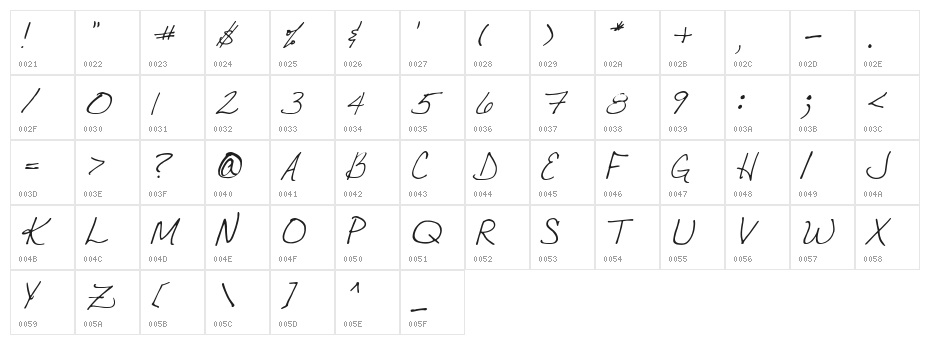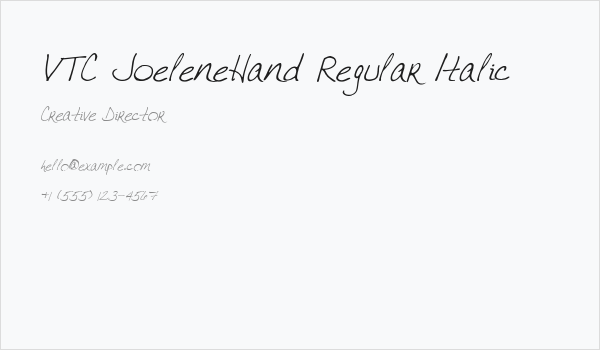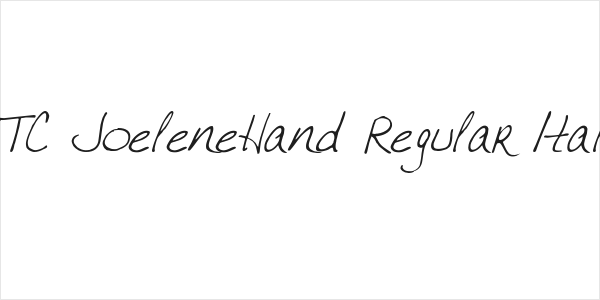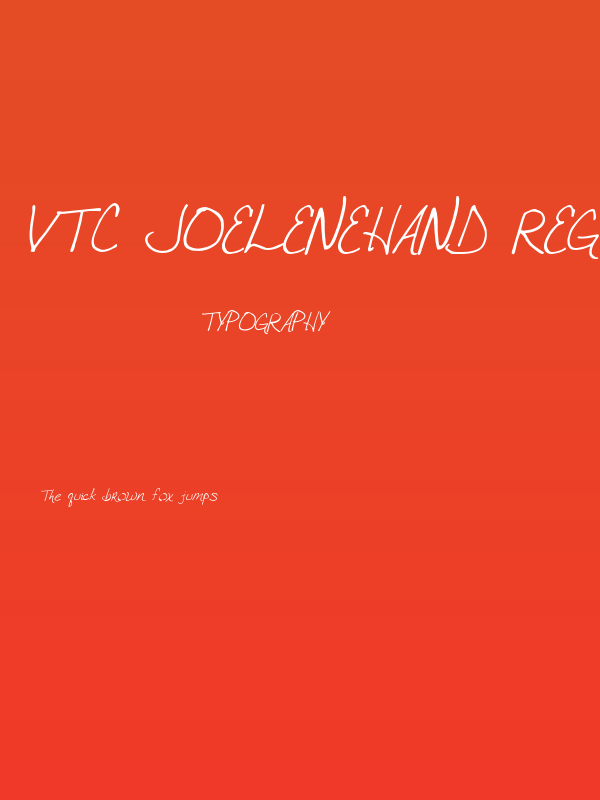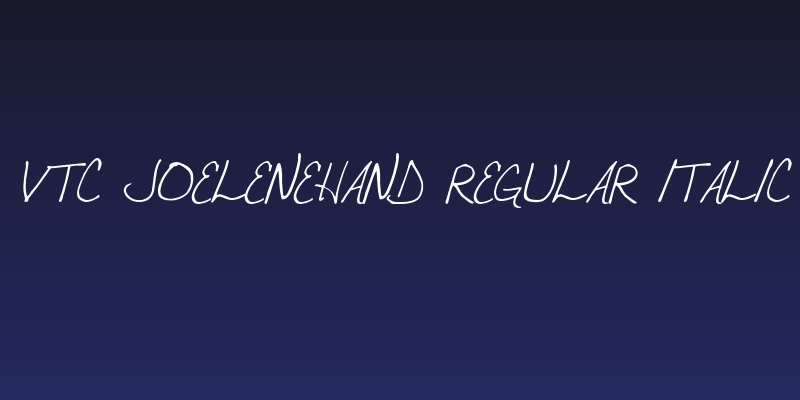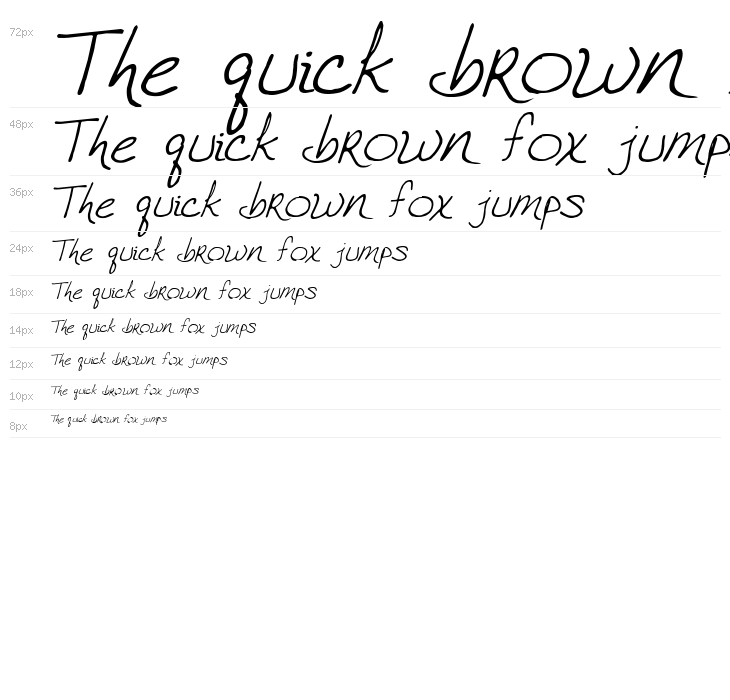
VTC JoeleneHand Regular Italic Font
VTC JoeleneHand Regular Italic Description
This font features a handwritten style with a flowing, cursive appearance. The letters are slightly slanted, giving it an italicized look, and the strokes vary in thickness, adding a dynamic and lively feel. The uppercase letters are bold and prominent, while the lowercase letters maintain a consistent flow, enhancing readability. The numbers and special characters follow the same fluid style, ensuring a cohesive look across all characters. This font exudes a personal and informal vibe, making it ideal for projects that require a touch of personality and warmth.
| Proposed Projects | Ideal for greeting cards, personal invitations, artistic projects, and branding that requires a personal touch. |